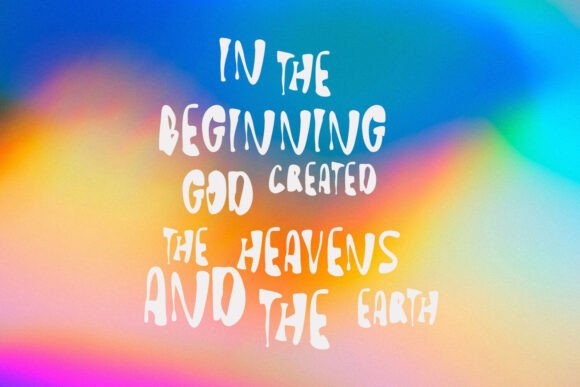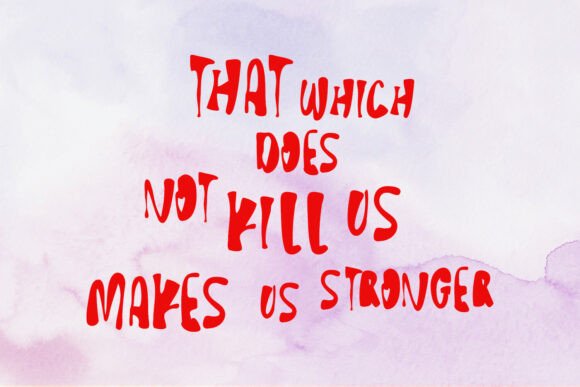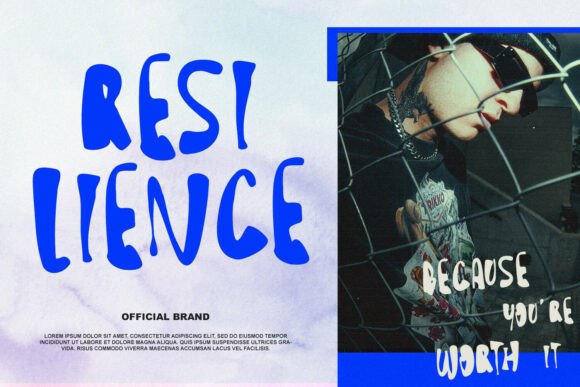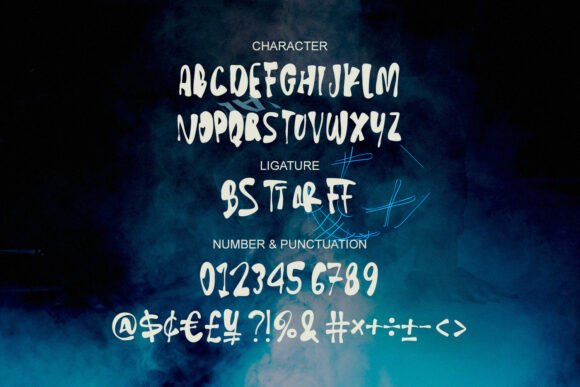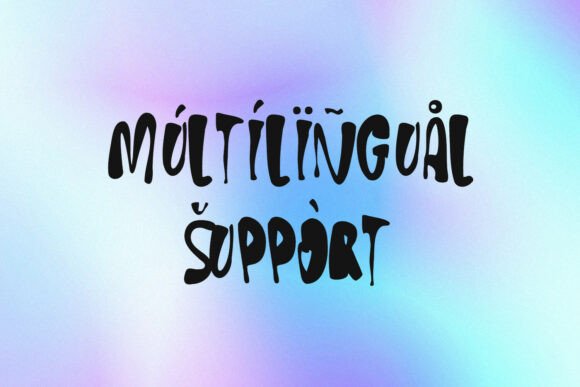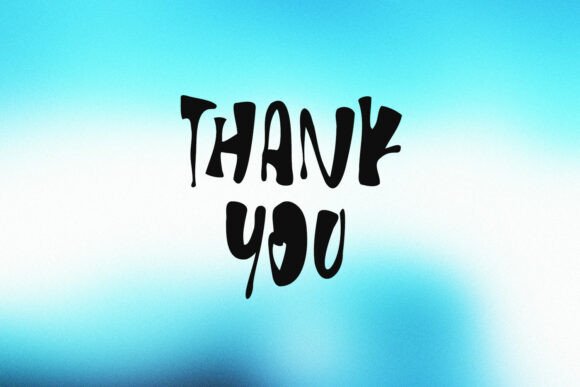
Introducing Barsy Font: The Ultimate Creative Companion for Designers and Crafters
Barsy is an incredibly unique handmade font that has been masterfully designed to become a true favorite among designers and crafters. With its distinctive charm and character, Barsy has the potential to bring each of your creative ideas to the highest level, setting your designs apart from the rest.
The Story Behind Barsy Font
Barsy is more than just a font – it’s a labor of love, carefully crafted to provide a fresh and exciting typographic experience. The creators of Barsy have poured their hearts and souls into designing a font that is not only visually stunning but also versatile and easy to use.
Whether you’re a professional designer or a crafter looking to add a personal touch to your projects, Barsy is the perfect companion. Its unique handmade feel makes it ideal for a wide range of creative applications, from branding and advertising to crafting and DIY projects.
What Makes Barsy Font So Special?
So, what sets Barsy apart from other fonts on the market? Here are just a few of its standout features:
- Unique Handmade Design: Barsy boasts a distinctive handmade look that adds a touch of personality to any design.
- Highly Versatile: With its clear and readable design, Barsy can be used for a wide range of applications, from headings and titles to body text and more.
- Perfect for Branding and Advertising: Barsy’s unique design makes it an excellent choice for branding and advertising projects, helping your business stand out from the competition.
- Pair it with Other Fonts: Experiment with pairing Barsy with other fonts to create a unique and eye-catching design.
- Use it for Headings and Titles: Barsy’s bold and playful design makes it perfect for headings and titles.
- Add it to Your Branding: Use Barsy to add a personal touch to your branding, including business cards, logos, and more.
- Experiment with Colors and Textures: Don’t be afraid to get creative with colors and textures when using Barsy in your designs.
Why Designers and Crafters Love Barsy Font
Barsy has quickly become a favorite among designers and crafters, and it’s easy to see why. Here are just a few reasons why Barsy has earned such a loyal following:
- Unique and Eye-Catching: Barsy’s handmade design makes it a standout in any design.
- Easy to Read: Despite its unique design, Barsy is highly readable, making it perfect for body text and more.
- Highly Versatile: Barsy can be used for a wide range of applications, from digital designs to print projects.
In conclusion, Barsy font is an incredibly unique and versatile handmade font that has the potential to bring each of your creative ideas to the highest level. With its distinctive charm, highly readable design, and ease of use, Barsy is the perfect companion for designers and crafters looking to add a personal touch to their projects.